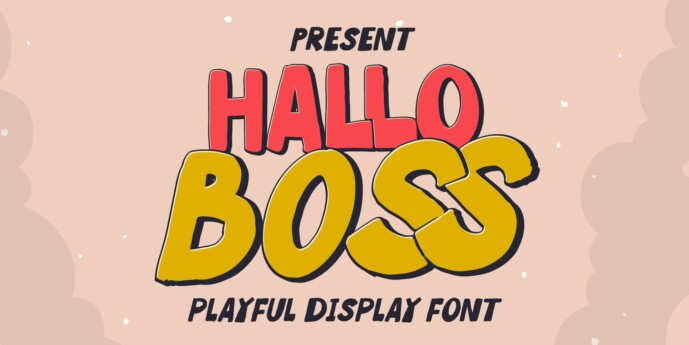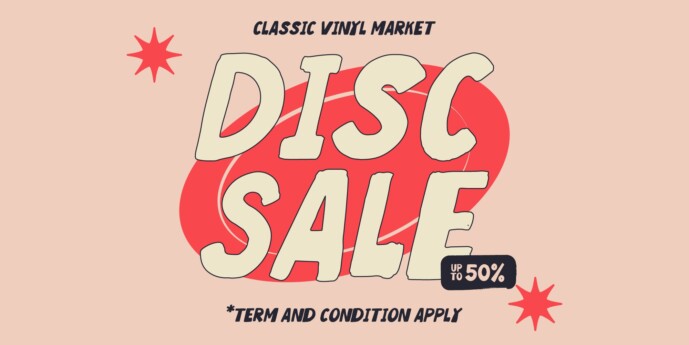
Hallo Boss – Playful Display Font, from Denustudios, suitable for any projects such as: logos, branding projects, homeware designs, product packaging, mugs, quotes, posters, shopping bags, t-shirts, book covers, name card, invitation cards, greeting cards, label, photography, watermark, special events, and all your other lovely projects that need a Playful Display Font taste.